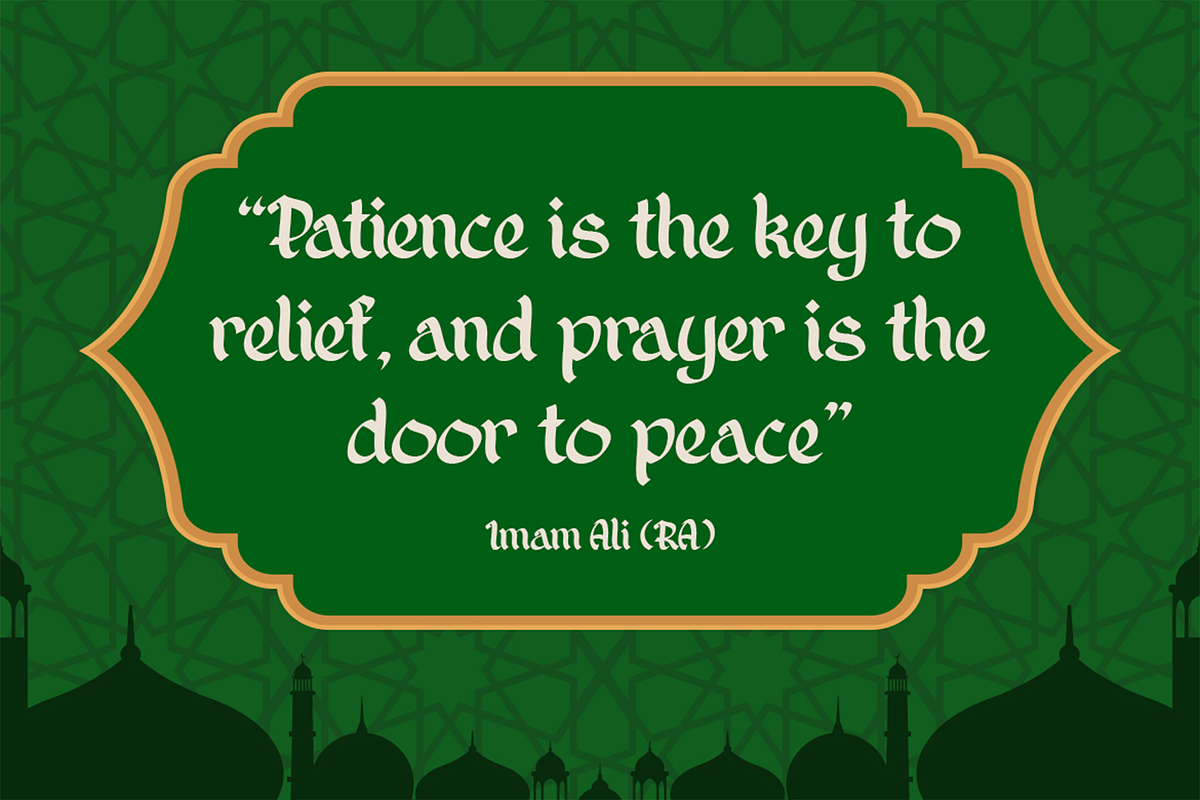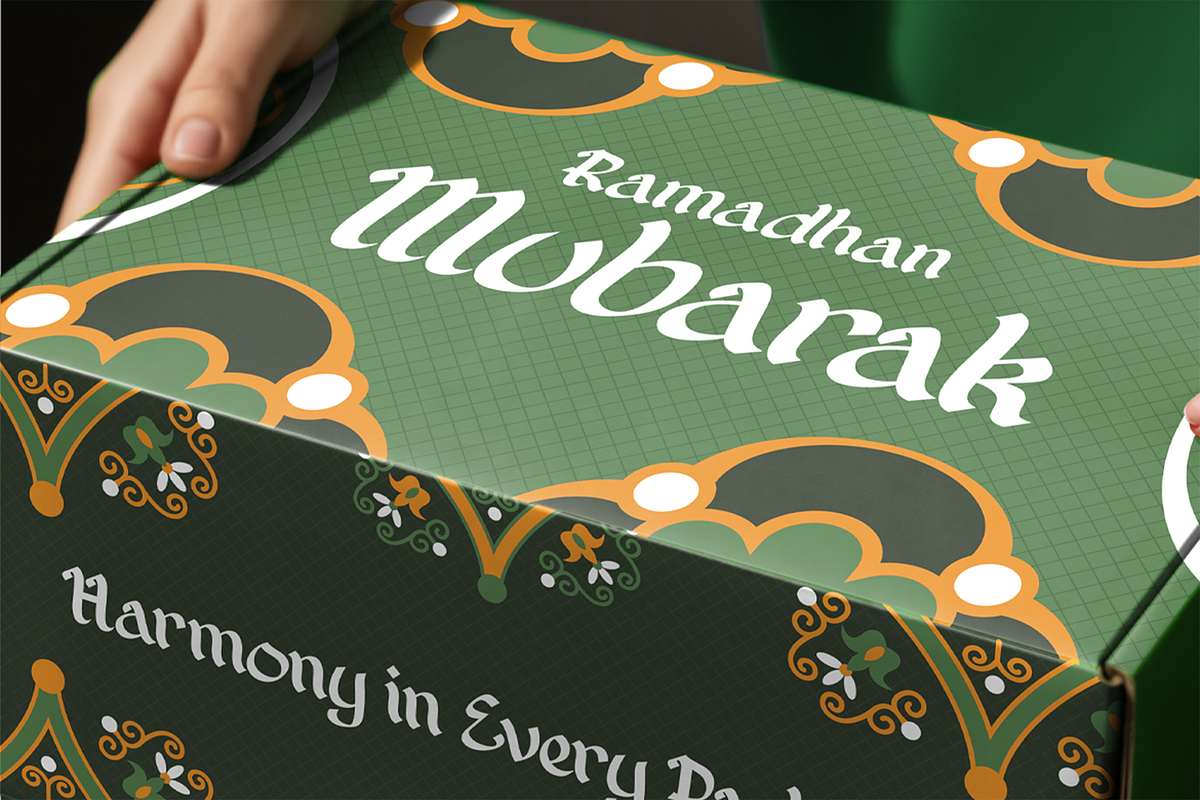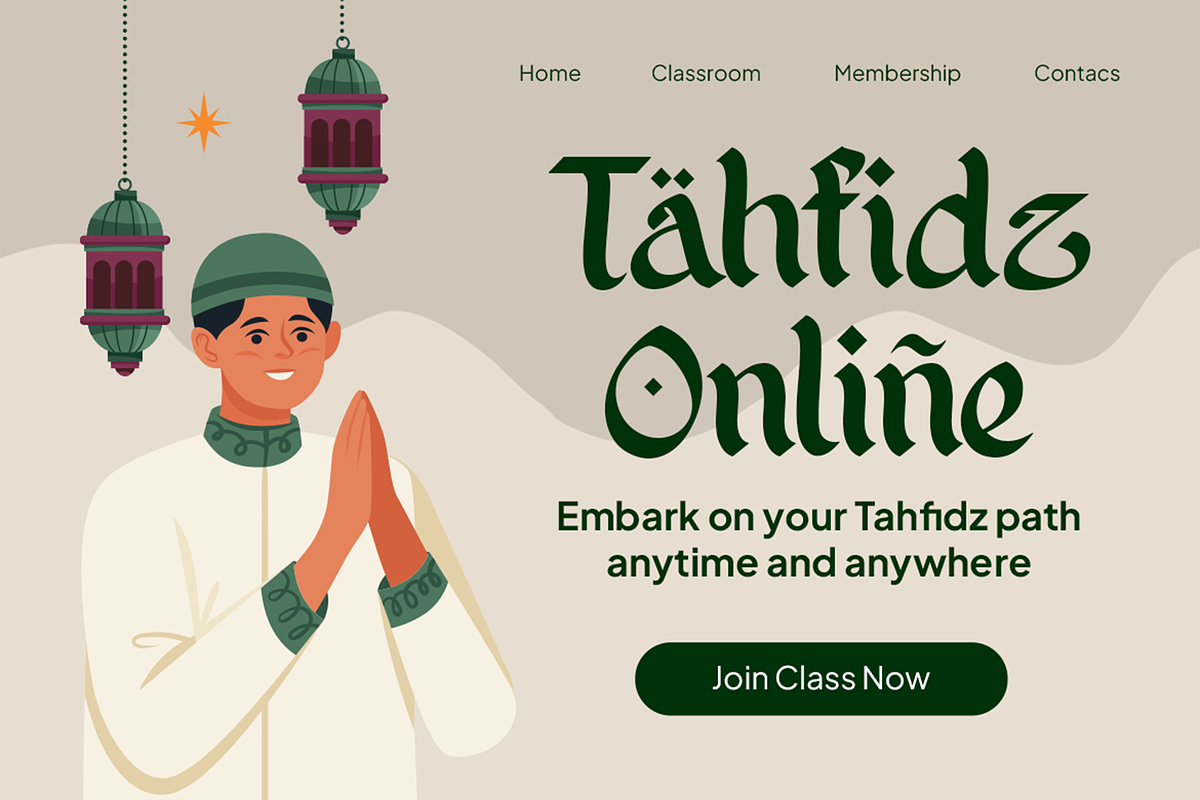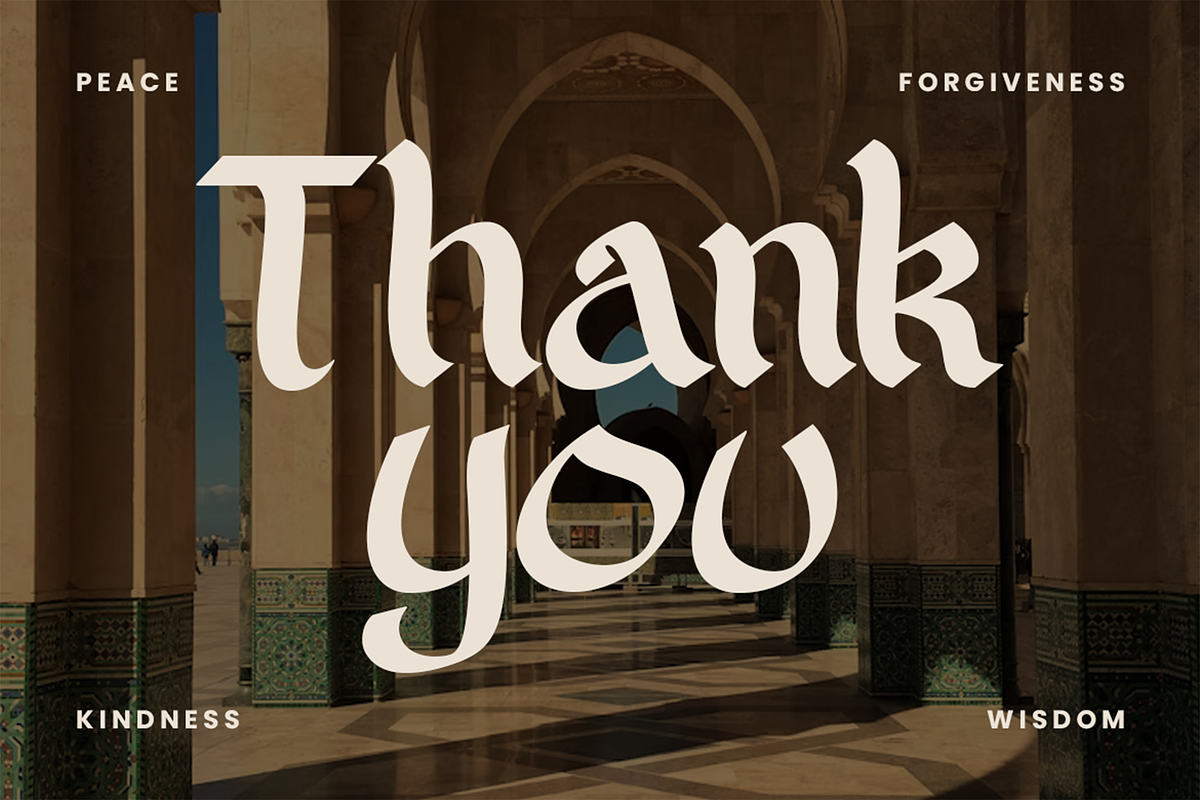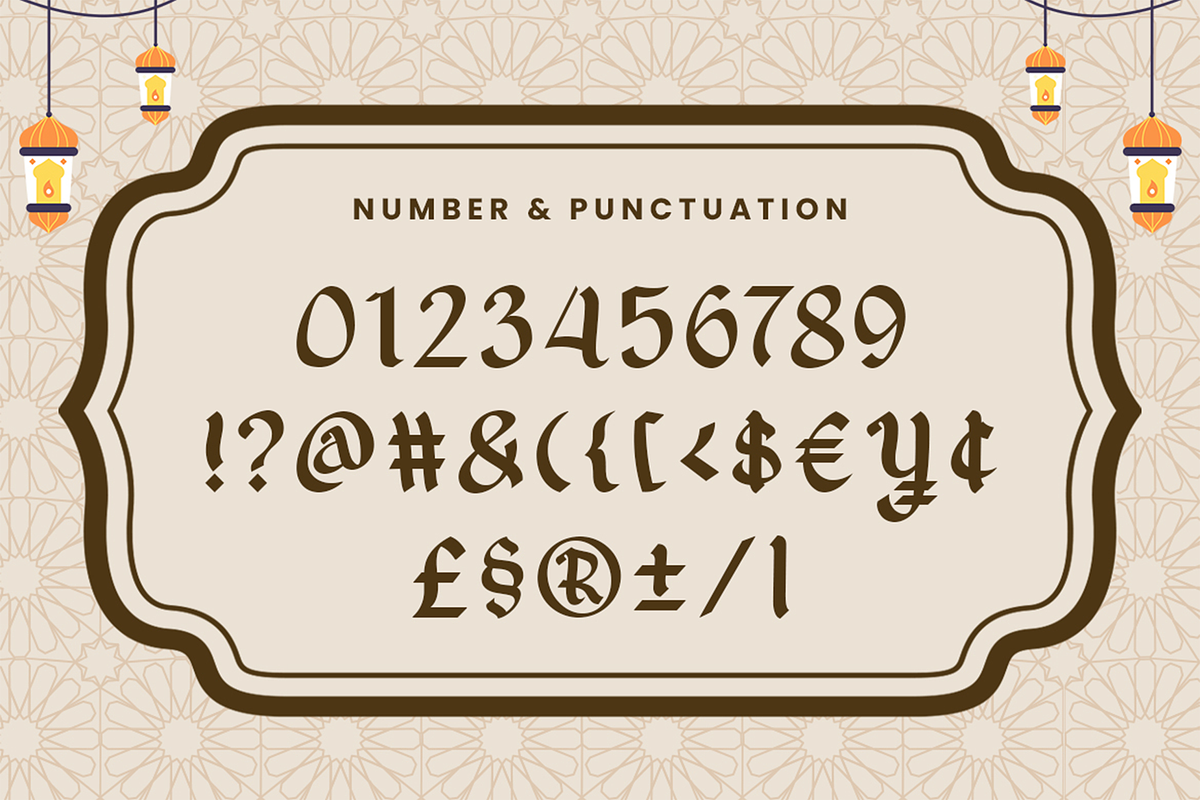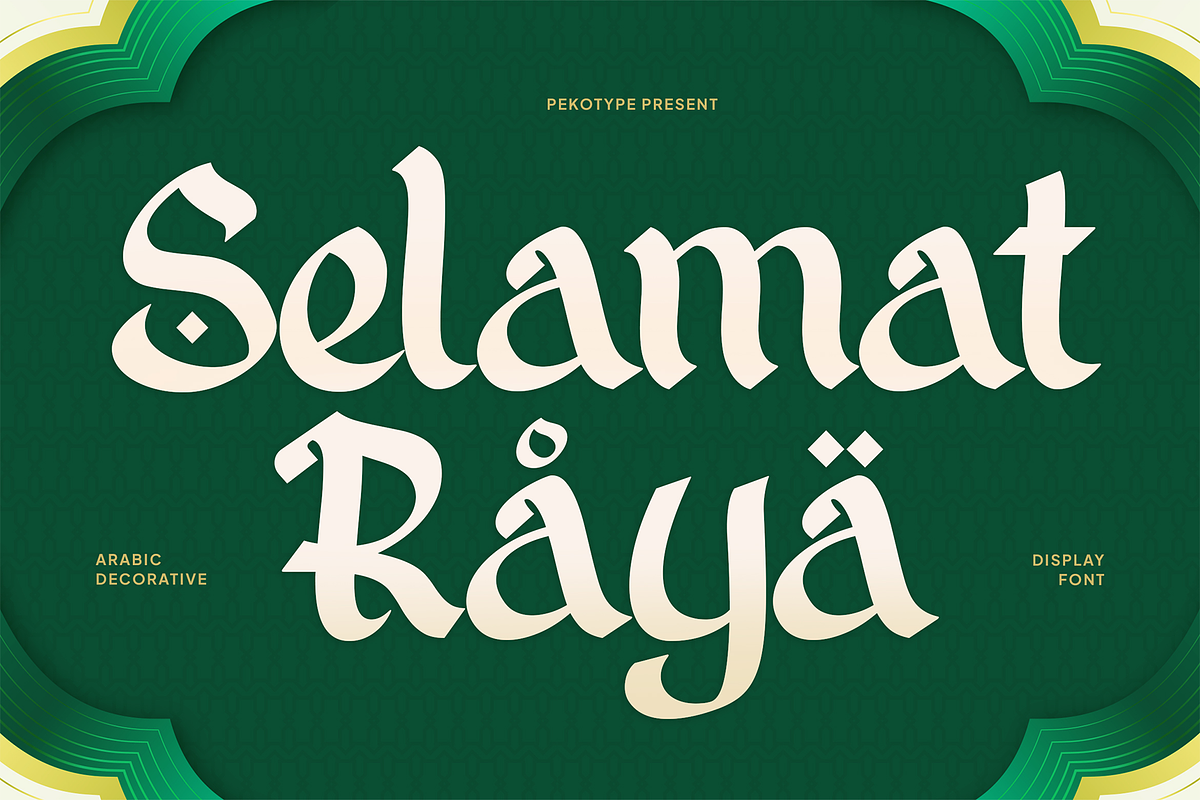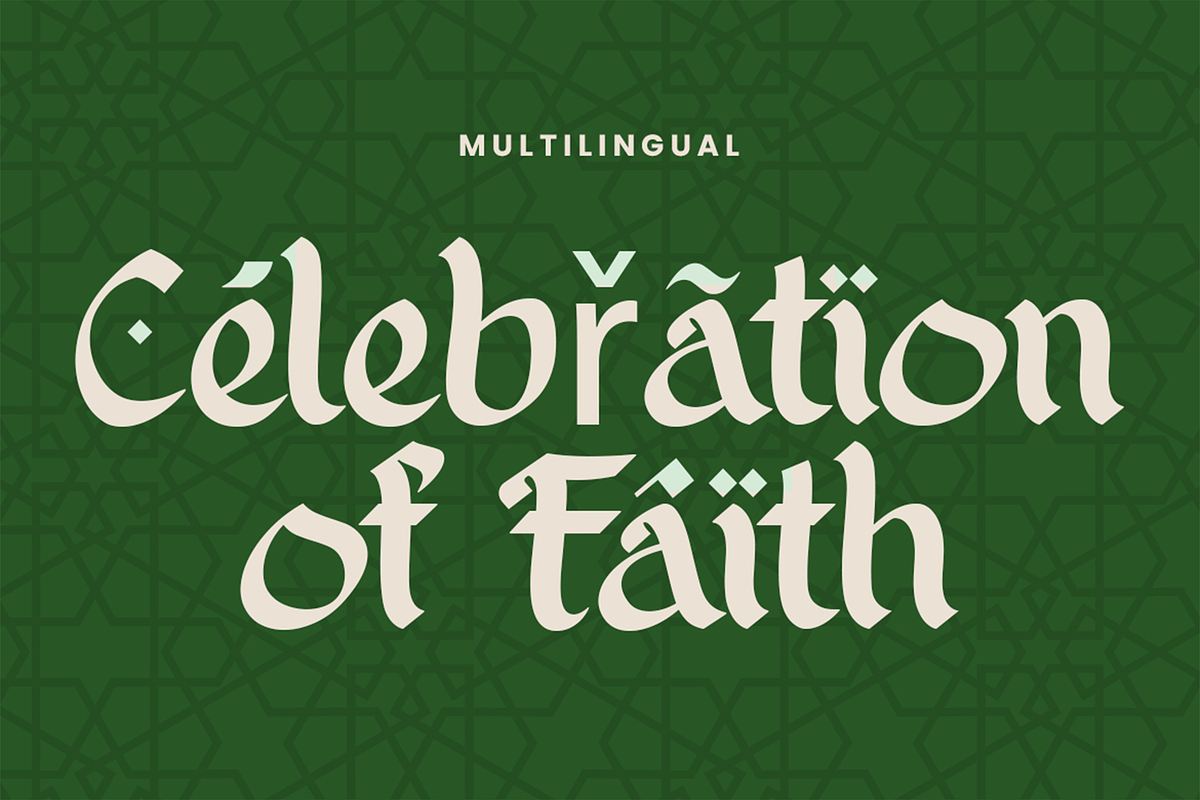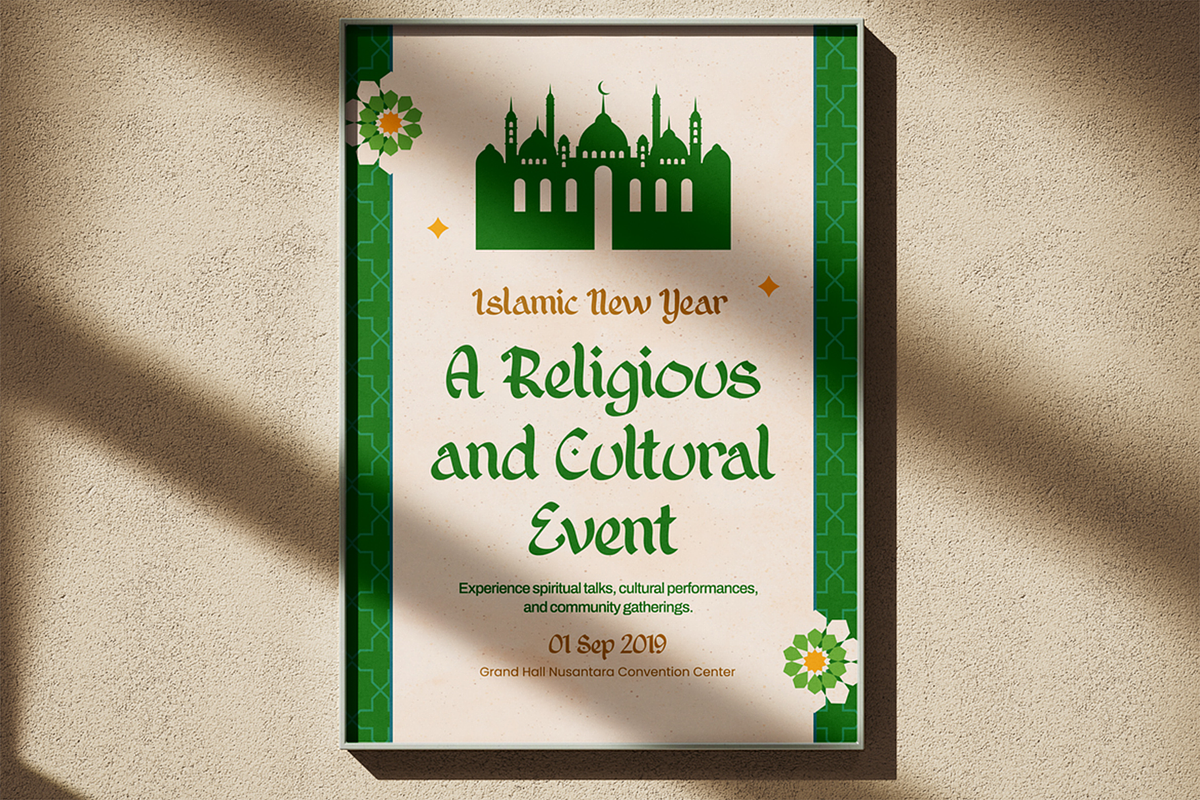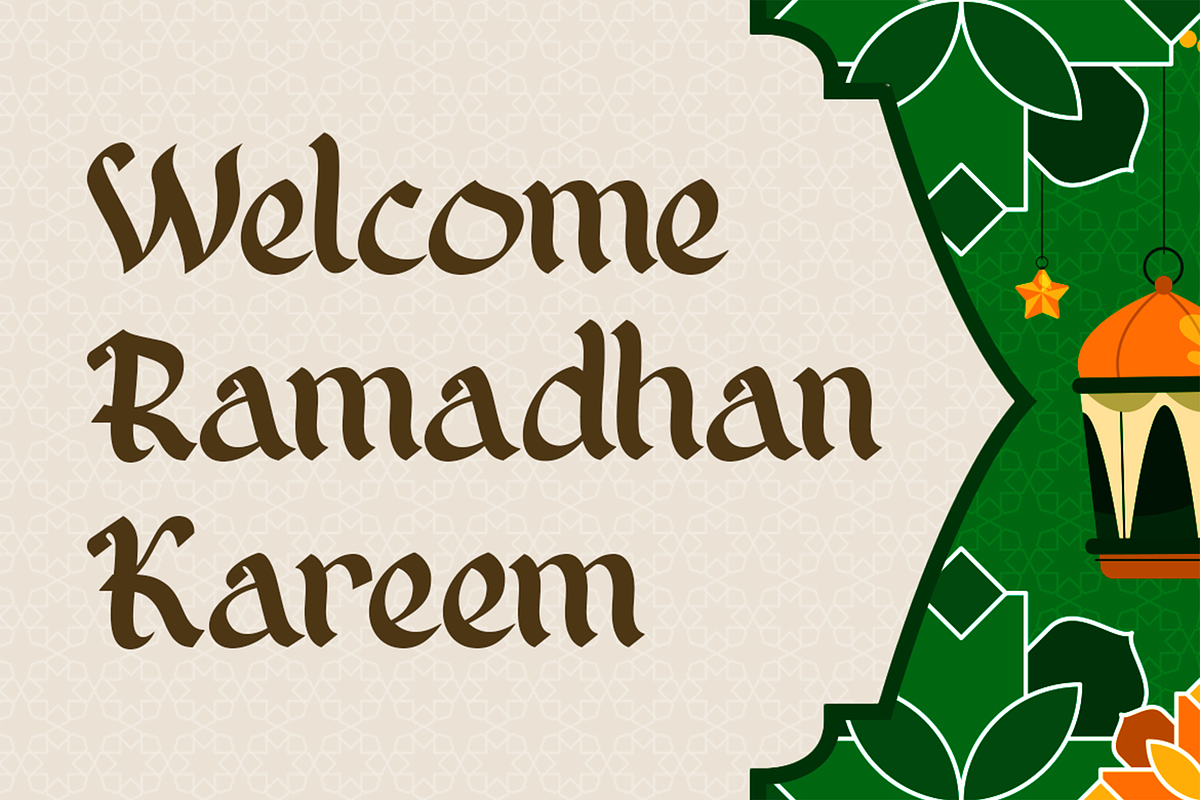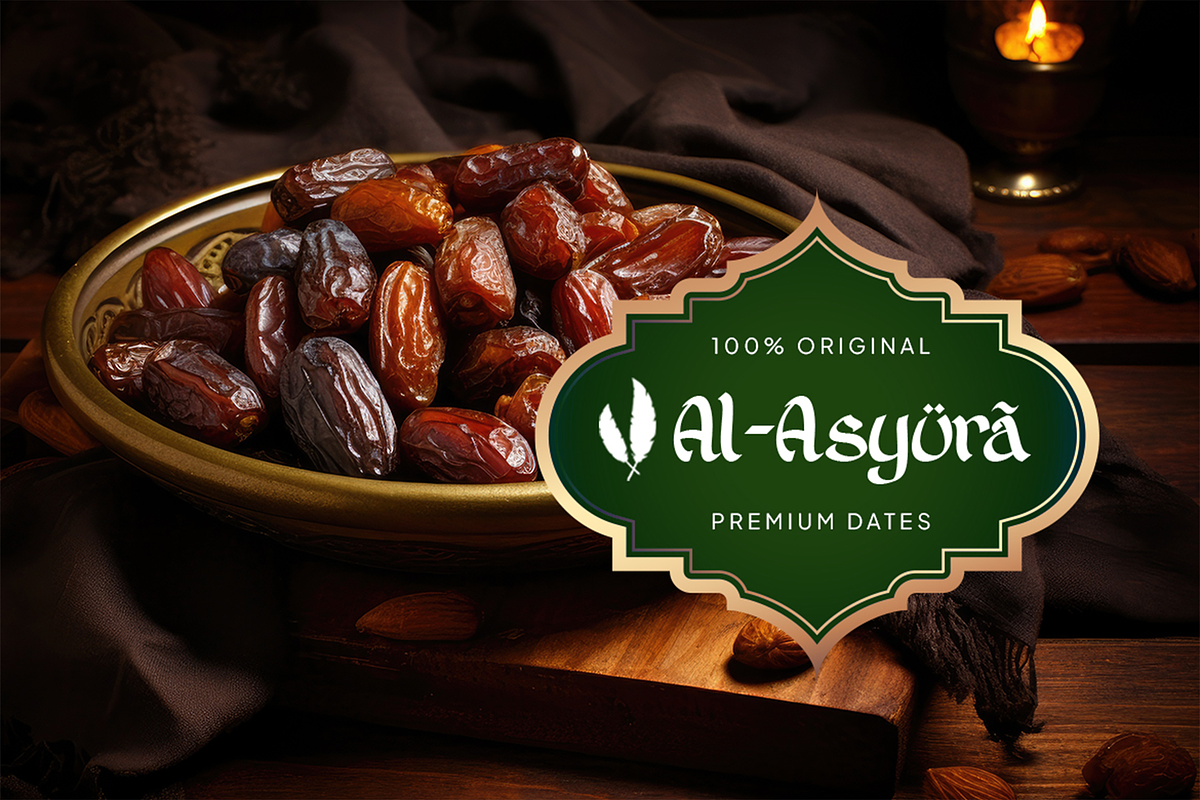
Selamat Raya– Arabic Decorative Font
Selamat Raya – Elegant Decorative Arabic Display Font
Celebrate elegance and cultural beauty with Selamat Raya, a decorative Arabic-inspired display font that radiates warmth, tradition, and festivity. This typeface combines graceful letterforms with modern readability, creating a perfect balance between heritage and contemporary design.
Featuring both uppercase and lowercase letters, multilingual support, and distinctive decorative strokes, Selamat Raya is the ideal choice for Ramadan campaigns, Eid greetings, Islamic branding, event posters, packaging, and social media promotions.
Whether you’re crafting a festive identity, elegant invitation, or spiritual message, Selamat Raya adds a sophisticated Middle Eastern flair to your design. Bring your creative projects to life with a touch of faith, harmony, and timeless beauty.
Make every design shine with Selamat Raya – where tradition meets modern typography.
- Number, Symbol, & Punctuation